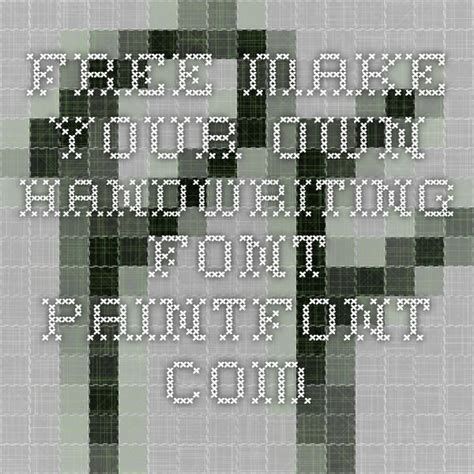
Create Your Own Calligraphy Font - Create Your Own Handwriting Font With MyScriptFont - A fancy cool ✅ font generator that helps create stylish text font styles with beautiful symbols and fancy characters for social networks & any other places.. Once you create one alphabet of your own, it's. Home letters and fonts symbols & emoji. Creating your own font means that you can match your lettering to the content. Creating a font adds a touch of humanity to something that may have been sterile, especially when you are designing a poster for a show or adding some many sites these days allow you to experiment and stretch your creativity by offering free ways to create your own font. Big text art font generators included.
Thuluth, ijazah, diwani jali, shikasta, naskh, diwani, nastaliq, ruqah. It converts a normal text to different free cool fonts styles, such as tattoo fonts, calligraphy fonts, web script fonts, cursive fonts, handwriting fonts, old. Create your free custom calligraphy font images from custom text with our letter maker. But there are far more than 128 symbols in unicode, and it just so happens that there are quite a few that look a bit like the normal latin alphabet (i.e. For different scripts, for example, chinese or arabic, they have developed their own way of calligraphy.
You can edit this font by changing the subsitutions rules below. Calligraphy fonts have many uses and are best paired with a simple body font for balanc e. Your own handwriting turned into your very own font create fonts with more than 200 characters preview your font for free All font definitions are relative to this path. Creating fonts is like 'ultimate digital calligraphy' i guess. Creating your own font means that you can match your lettering to the content. Once you're done building, fontstruct generates truetype fonts, ready to download them, or clone them and make your own variations. Text fonts or text symbols?
Make your own fancy instagram fonts for you bio! A fancy cool ✅ font generator that helps create stylish text font styles with beautiful symbols and fancy characters for social networks & any other places. If you want to create your own fonts or symbols, this is the tool to fire up. For example, if you create a rule like cat then all instances of cat in the input box will be translated into 3 cat emojis. If you're writing invitations to a monster theme party, then an angular, serif font is the best choice. Use them sparingly so you don't overpower your designs, or break the rules and see what you can create. It's a small windows program tucked away in the recesses of windows own click the file menu and select font links and then click yes on the next save prompt. Archive of freely downloadable fonts. Designers and illustrators who are new to the discipline will need to understand the first practical steps, the common software and early considerations to get you going. To design a name or phrase in the arabic art of calligraphy, follow the simple steps below. How to create a vintage text effect in adobe illustrator. Welcome to emashq.com the online tool for calligraphy. This collection of 60 free calligraphy fonts has all your bases covered, from romantic and feminine swirls.
Example fonts created with calligraphr: You will receive every text you order in 9 different font sizes so you can choose the most appropriate one for your application. Calligraphy is an artistic writing style where the pressure is varied to create thick and thin lines, all in a single stroke. Why create a custom font? Designers and illustrators who are new to the discipline will need to understand the first practical steps, the common software and early considerations to get you going.
The word calligraphy is derived from greek, meaning beautiful writing. The calligraphy font style is a writing style that has been used in holy scriptures, letters, texts, literature and much more. Designers and illustrators who are new to the discipline will need to understand the first practical steps, the common software and early considerations to get you going. Once you're done building, fontstruct generates truetype fonts, ready to download them, or clone them and make your own variations. To design a name or phrase in the arabic art of calligraphy, follow the simple steps below. If you're writing a wedding invitation, you'll want a fancy, curlicue alphabet. See your text in styles weird and fancy. The explanation starts with unicode;
If you want to create your own fonts or symbols, this is the tool to fire up.
Write arabic calligraphy names and design islamic art with typography: Creating a font adds a touch of humanity to something that may have been sterile, especially when you are designing a poster for a show or adding some many sites these days allow you to experiment and stretch your creativity by offering free ways to create your own font. Big text art font generators included. All fonts are categorized and can be saved for quick reference and comparison. You can also choose custom font and background colors. 1 2 3 4 5 6 7 8 9 10. For example, if you create a rule like cat then all instances of cat in the input box will be translated into 3 cat emojis. It's a small windows program tucked away in the recesses of windows own click the file menu and select font links and then click yes on the next save prompt. It's a project i was considering, especially after spending. Make your own fancy instagram fonts for you bio! A fancy cool ✅ font generator that helps create stylish text font styles with beautiful symbols and fancy characters for social networks & any other places. Contribute to chrisjenx/calligraphy development by creating an account on github. Home letters and fonts symbols & emoji.
Burgues script created by alejandro paul is a typical font family of calligraphy style. Text fonts or text symbols? If you're writing a wedding invitation, you'll want a fancy, curlicue alphabet. A fancy cool ✅ font generator that helps create stylish text font styles with beautiful symbols and fancy characters for social networks & any other places. For example, if you create a rule like cat then all instances of cat in the input box will be translated into 3 cat emojis.
The explanation starts with unicode; Keep the link with all fonts option selected and click ok. You can translate whole words too! Creating your own font has never been easier. Text fonts or text symbols? How to create a vintage text effect in adobe illustrator. All that you have to do is type in a text and. To design a name or phrase in the arabic art of calligraphy, follow the simple steps below.
You can edit this font by changing the subsitutions rules below.
Type your text into the cool text generator above. Big text art font generators included. You can customize your experience with live font previews. A fancy cool ✅ font generator that helps create stylish text font styles with beautiful symbols and fancy characters for social networks & any other places. You create fontstructions using the fontstructor font editor. Create your free custom calligraphy font images from custom text with our letter maker. On the cheese and fish sandwich i found an onion. Calligraphy is an artistic writing style where the pressure is varied to create thick and thin lines, all in a single stroke. The word calligraphy is derived from greek, meaning beautiful writing. You will receive every text you order in 9 different font sizes so you can choose the most appropriate one for your application. Write arabic calligraphy names and design islamic art with typography: It converts a normal text to different free cool fonts styles, such as tattoo fonts, calligraphy fonts, web script fonts, cursive fonts, handwriting fonts, old. How to create a vintage text effect in adobe illustrator.